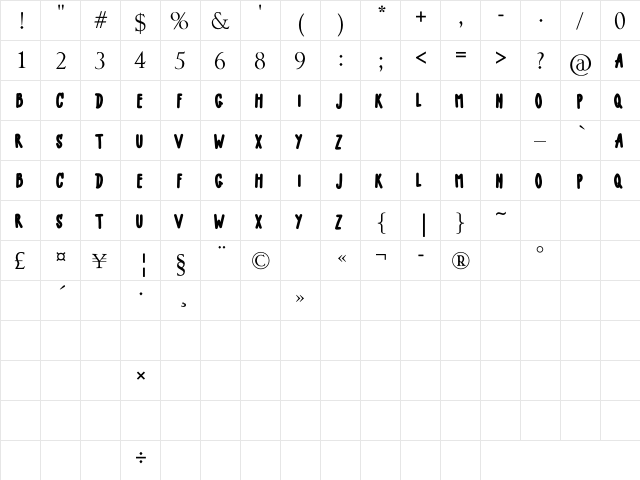
LITTLE MALLE Regular
Design Context for LITTLE MALLE Typeface
LITTLE MALLE is a composed and adaptable typeface that performs quietly and consistently across a wide range of design contexts.